Shortly after it was announced that Rem Koolhaas' OMA would be heading up the contemporary renovation of a 19th-century Parisian building for the Galeries Lafayette Foundation, Wolff Olins set to work crafting a graphic identity for the new arts venue that would dialogue directly with the architecture and its future occupants. Commissioning Colophon to draw a typeface that would lead the way, the London-based branding agency was keen to foster a typographic call-and-response with the new infrastructure of the building: a courtyard tower with a set of four motorised platforms that dynamically change the programming across the building's seven static floors.
Derived from the need for flexibility, the architectural concept offered the Foundation a new curatorial dimension, complementing and re-framing the traditional use of the heritage-preserved classical structure. In designing and engineering an accompanying typeface, we brought this conceit to the fore: ever-changing capital letters move in and out of a character's given frame, concealing and revealing pieces of language as a means of mimicking the shifting exhibition tower, while also prompting anticipatory readings of semi-familiar words and phrases.
The façade of Lafayette Anticipations — at 9 Rue de Platres in Le Marais, just east of the similarly devious Centre Pompidou — was soon adorned with a customized setting of the type, and followed shortly after by applications across architectural signage, wayfinding, print collateral, products, garments, and digital applications in order to ultimately support diverse programmes in sculpture, ceramics, fashion, design, and performance.
In typographically answering to the 49 different configurations achievable via the building's pioneering system of moving platforms, Wolff Olins proposed a strict character grid that allowed for seven different vertical arrangements of each A–Z letterform, prompting a 182-character alphabet with a vast number of unique character pairs. In order to then assist in the facile application of an otherwise idosyncratic set of types, Colophon built several tools that allowed succinct visual communication among Foundry, Agency, and Client.
In a feat of design, maths, and code working in tandem, we developed a digital script (based loosely on theories observed in quantum mechanics) that 'looks' at contextual character placement in order to collate a holistic set of random combinations. This functionality was then coupled with a custom web application that enabled both Wolff Olins and Galeries Lafayette to select compelling letter pairings from thousands of possibilities, and seamlessly pass those preferences off to Colophon as data sets.
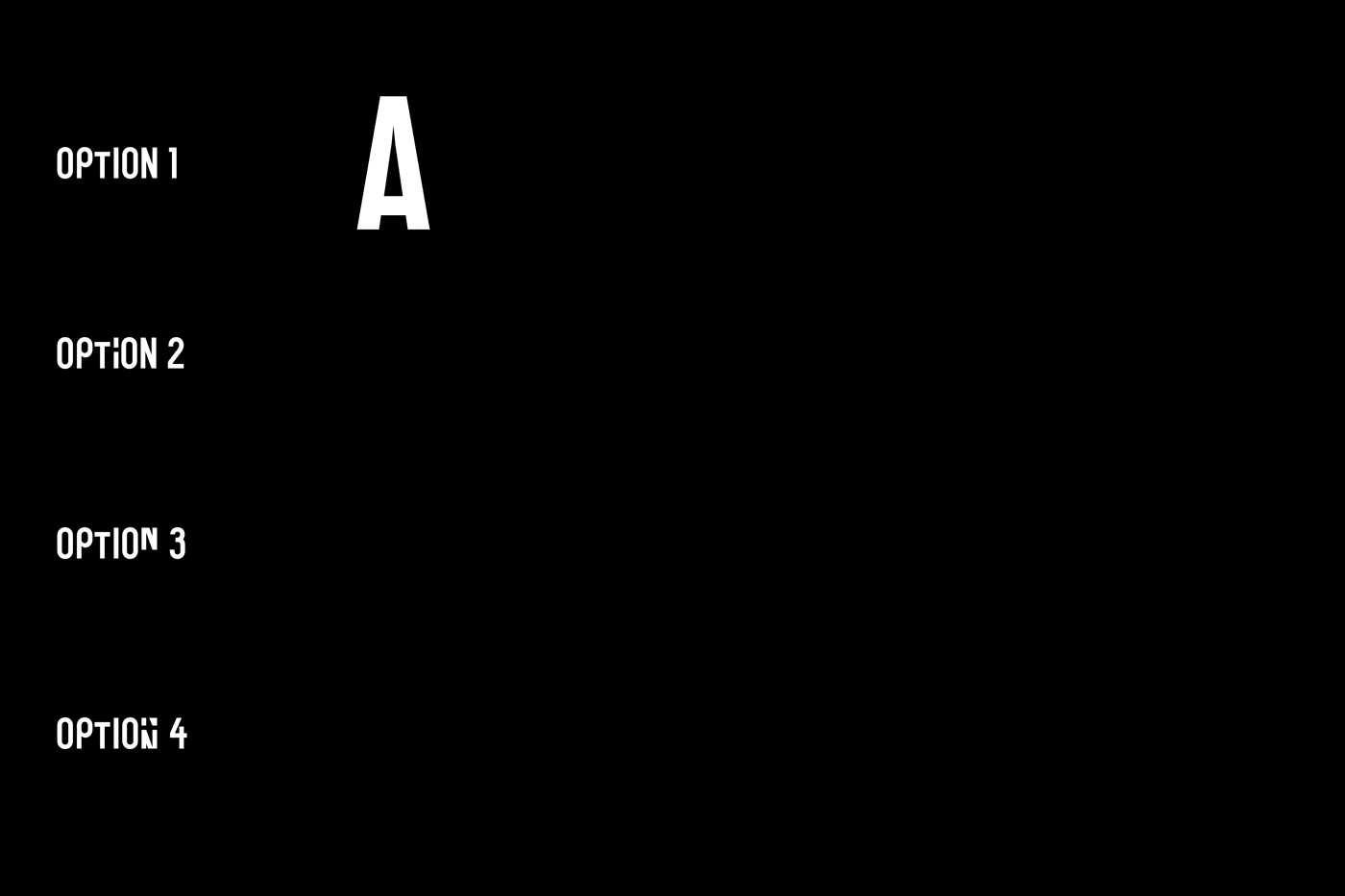
To put these pairings to use, an additional algorithm was built into the final font files that allows the same set of language to yield a different appearance each time its rendered, giving the type a sense of constant motion and perennial transformation — an overt homage to the building, its commissioners, and its new inhabitants.
Opened in March of 2018 to great fanfare (and warm press coverage) that often noted the branding and typography of the new cultural venue, Lafayette Anticipations' simple-yet-radical custom typeface flies an intentionally contemporary flag in concert with Galeries Lafayette's 120-year history as one of France's oldest department stores. An interconnected system of responsive typographic assets lend the arts institution a sturdy brand foundation amidst the inevitability and anticipation of perpetual change.
Typeface: Anticipations Sans
2 Styles: Condensed
Classification: Dynamic Display